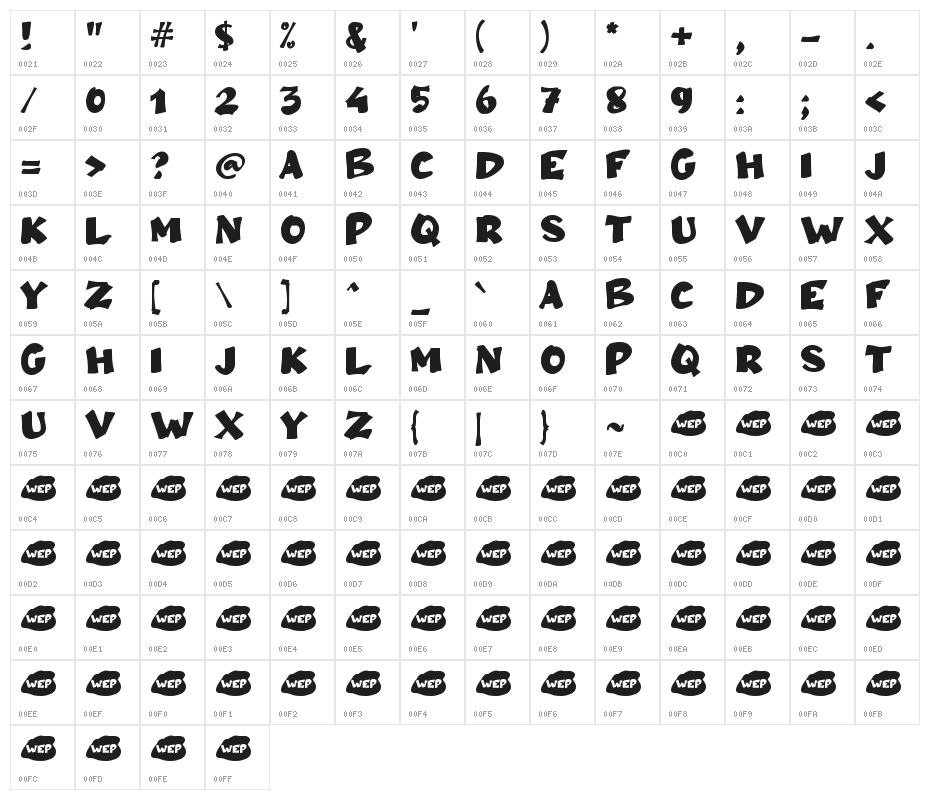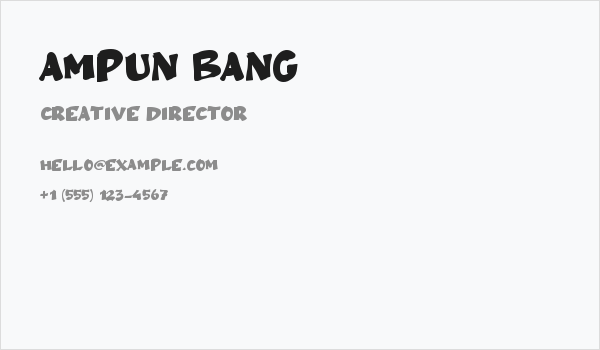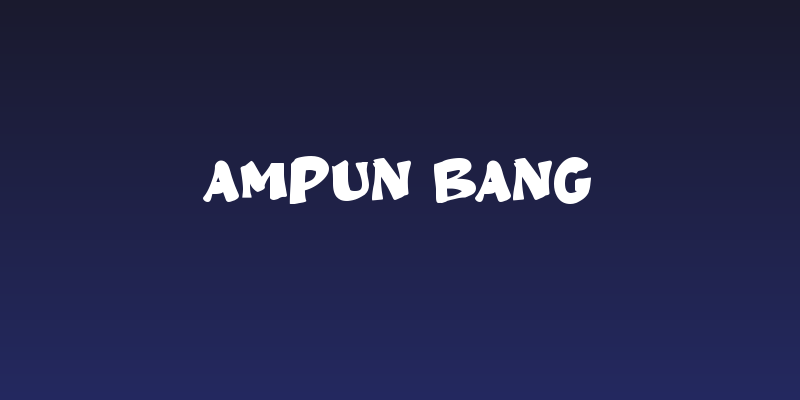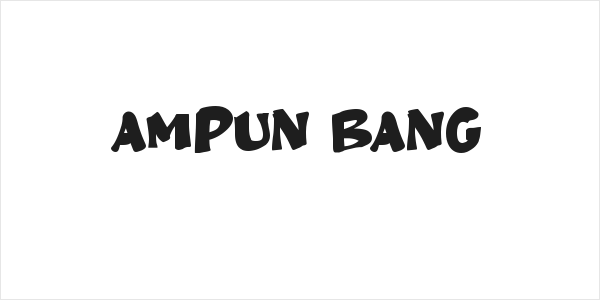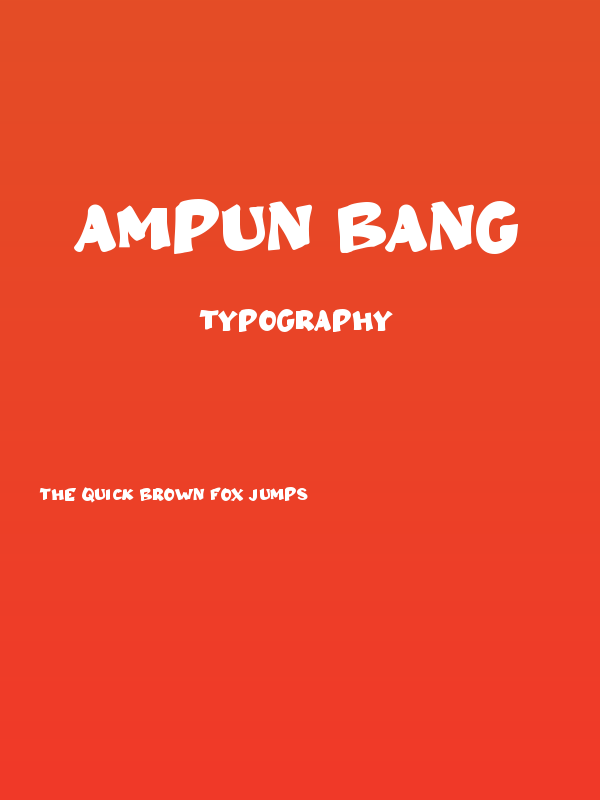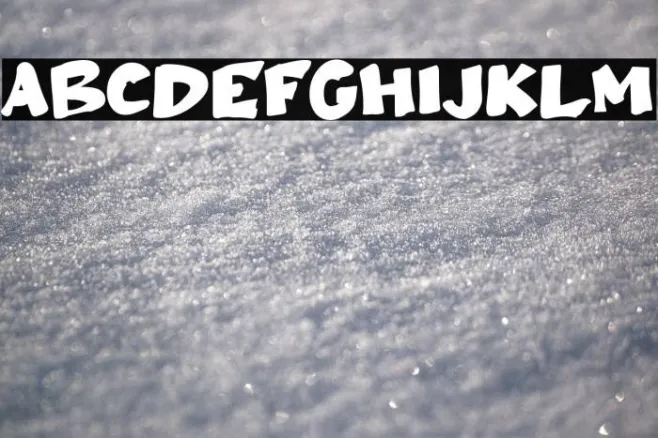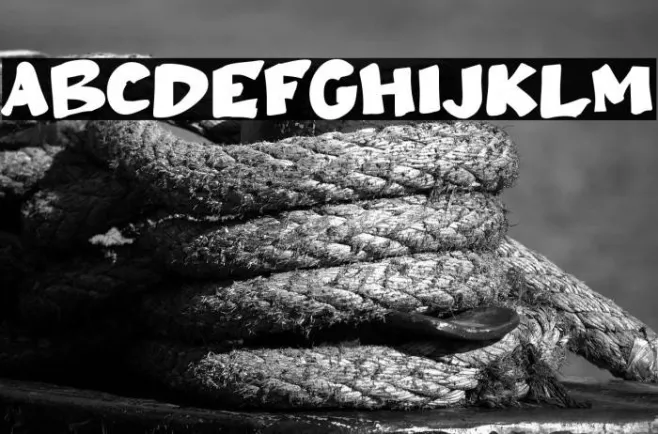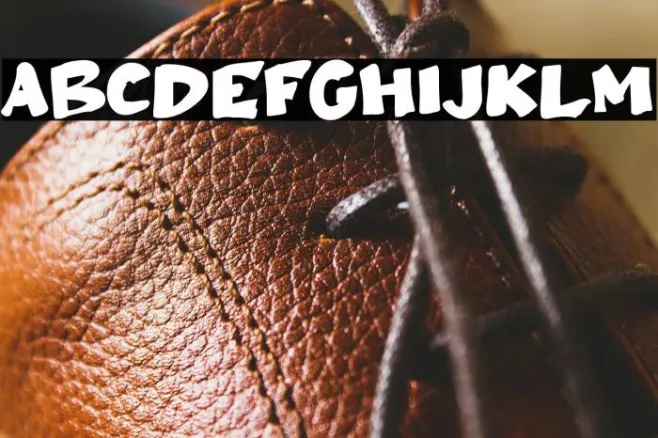
Ampun Bang Font
Ampun Bang Description
This font features a bold and playful style with exaggerated, rounded forms that give it a lively and energetic appearance. The characters are thick and heavy, with a slightly irregular shape that adds a whimsical touch. The uppercase and lowercase letters maintain a consistent weight, contributing to a cohesive look. The numbers and special characters follow the same playful design, making them stand out. This font is ideal for projects that require a fun and informal vibe, such as children's books, posters, or party invitations. Its unique style ensures that it captures attention and conveys a sense of joy and creativity.
| Overall Style | Playful, Energetic, Whimsical |
| Proposed Projects | Children's books, posters, party invitations, playful branding. |